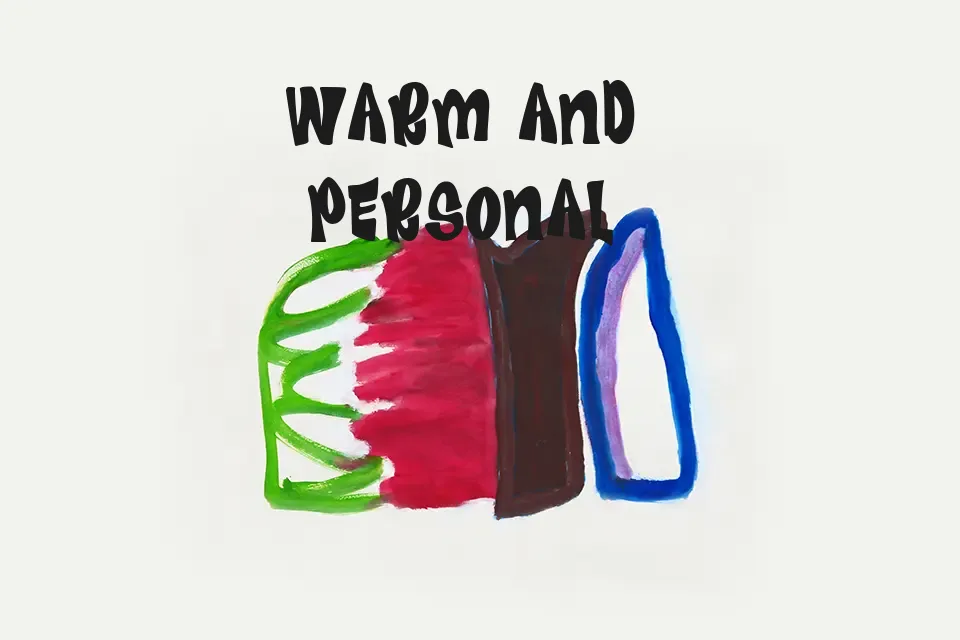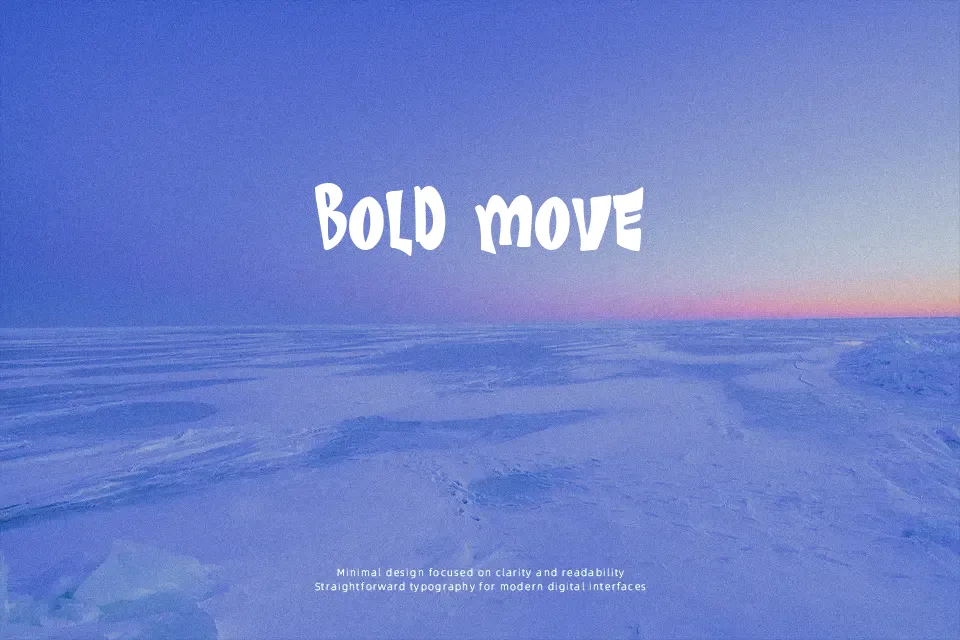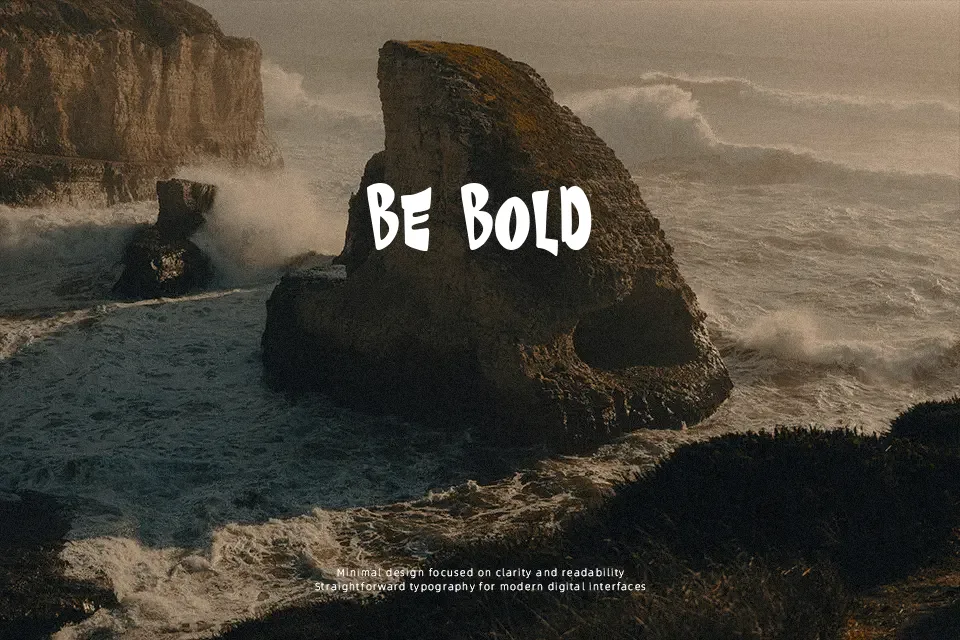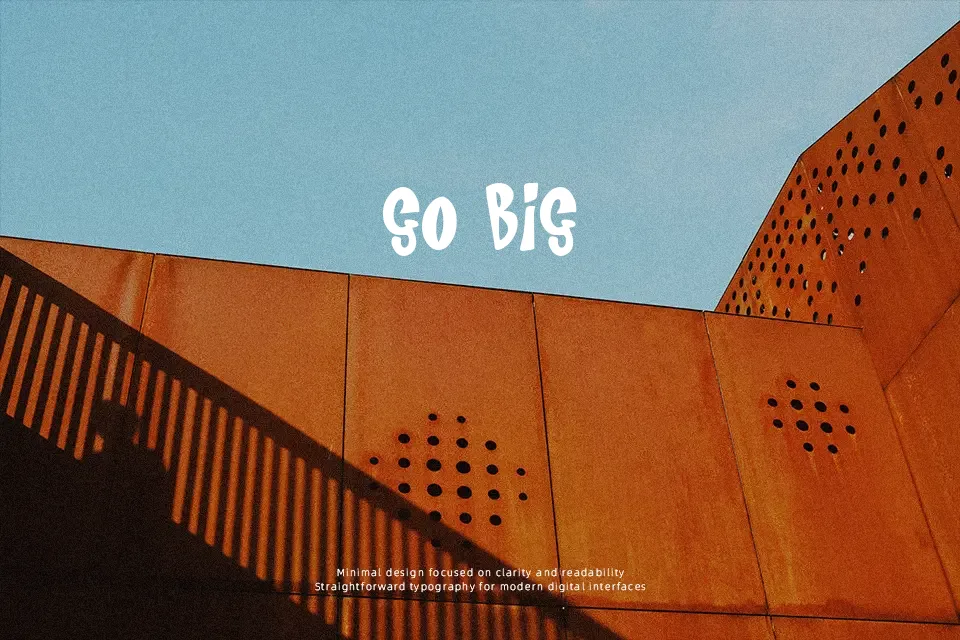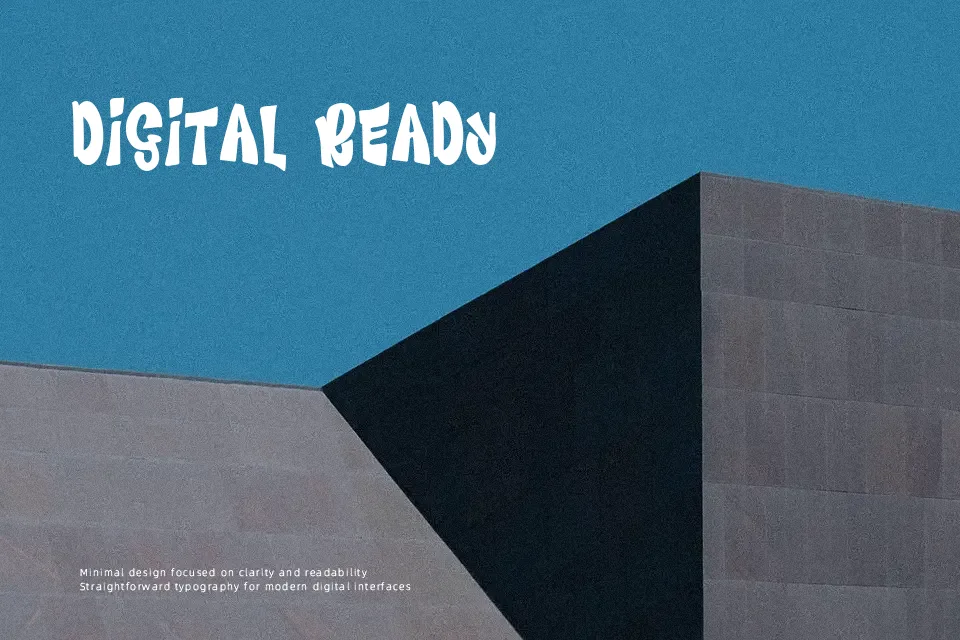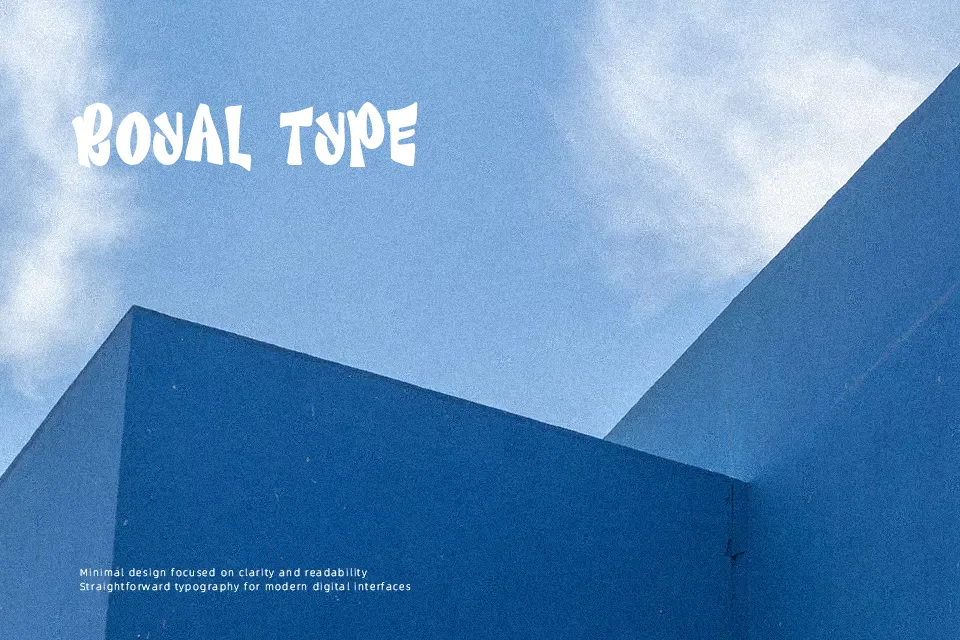
Advertising Pulp Font
Thick strokes, tight condensed spacing, and exaggerated cartoon letterforms give Advertising Pulp a loud, unapologetic character rooted in vintage pulp-print aesthetics. The bold weight commands attention at large sizes, making it a strong candidate for event posters, comic-style headers, and retro promotional materials. Legibility drops sharply at small sizes — this is strictly a display-only typeface, not a workhorse. If you need a font that reads cleanly across body text or at sub-20px sizes, look elsewhere. Where it earns its keep is in contexts that welcome visual noise and throwback attitude: think retro game titles, zine covers, or novelty packaging where restraint is the last thing on the agenda.
Best For:- Retro poster and event flyer headlines
– Comic book or zine-style cover titles
– Novelty packaging and label graphics
– Vintage-style social media graphics
Not Ideal For:- Body text or extended reading
– Corporate or professional branding
– Small-size applications (icons, captions)
– Minimalist or editorial design layouts
Perfect for advertising, headline, and packaging, with a bold and cartoon style.